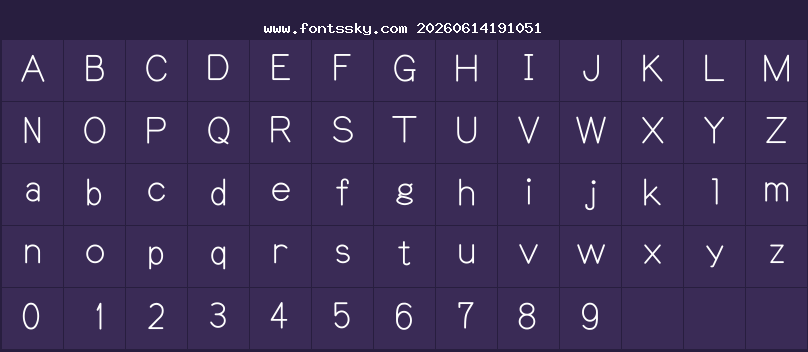
• Font Name: 和田研中丸ゴシック2004絵文字P
• Full Font Name: 和田研中丸ゴシック2004絵文字P
• PostScript Name: WadaLabChuMaruGo2004EmojiP
• Copyright: WadaLab, RareEarth
• Designer: Wadalab, RareEarth
• Manufacturer: RareEarth
About 和田研中丸ゴシック2004絵文字P.ttf
和田研中丸ゴシック2004絵文字P.ttf is a modern, elegant sans-serif font designed for ultimate readability and visual harmony. Perfect for branding, headlines, web design, and print materials.